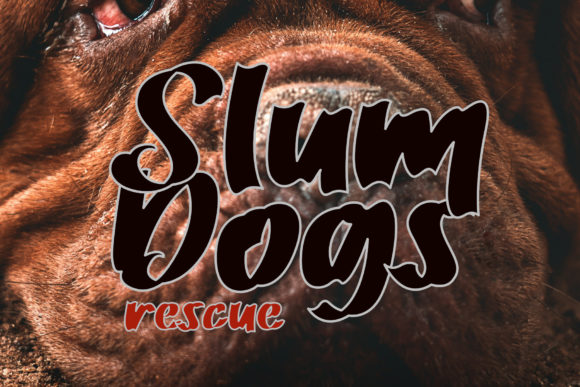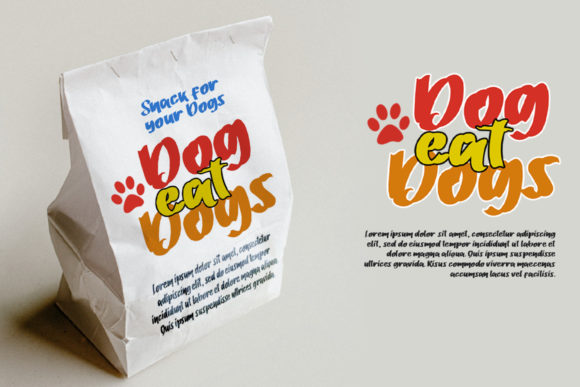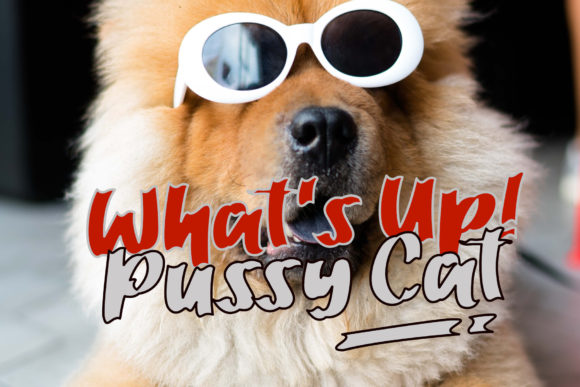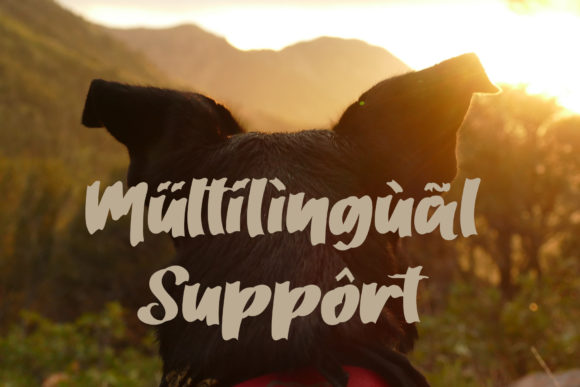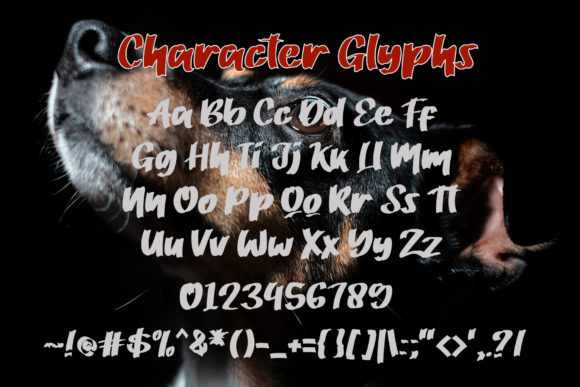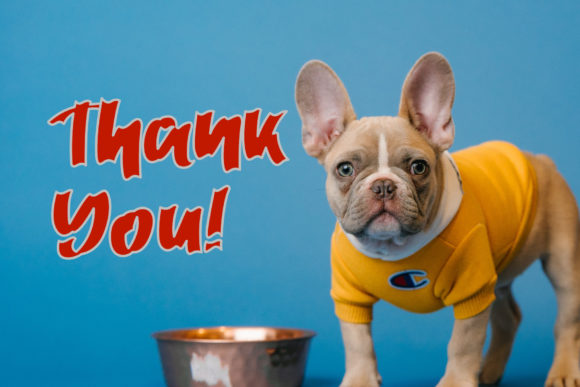
Bullmars Font: The Ultimate Urban Display Font for Designers and Crafters
In the world of typography, fonts play a crucial role in conveying the tone and personality of a design. For designers and crafters looking for a bold, urban, and cool-looking display font, Bullmars Font is an excellent choice. This versatile font is perfect for a wide range of design projects, including t-shirts, sportswear, logos, advertisements, clothing, and more.
What is Bullmars Font?
Bullmars Font is a bold, urban-styled display font designed to make a statement. Its sleek and modern design makes it perfect for designers and crafters who want to add a touch of edginess to their work. The font’s bold and condensed style ensures that your text stands out from the crowd, making it ideal for headlines, titles, and short phrases.
Key Features of Bullmars Font
- Bold and Urban Style: Bullmars Font boasts a bold and urban style that is perfect for creating eye-catching designs.
- Cool and Modern Design: The font’s sleek and modern design makes it perfect for designers and crafters who want to create trendy and stylish designs.
- Versatile and Flexible: Bullmars Font is suitable for a wide range of design projects, from t-shirts and sportswear to logos and advertisements.
- Easy to Read: Despite its bold style, Bullmars Font is easy to read, making it perfect for short phrases and headlines.
Use Cases for Bullmars Font
Bullmars Font is a versatile font that can be used for a wide range of design projects. Here are some use cases where Bullmars Font shines:
- T-Shirts and Apparel: Create eye-catching t-shirt designs with Bullmars Font. Its bold style ensures that your text stands out on any type of apparel.
- Sportswear and Accessories: Use Bullmars Font to create stylish and modern sportswear and accessory designs.
- Logos and Branding: Create a bold and memorable logo with Bullmars Font. Its unique style ensures that your brand stands out from the competition.
- Advertisements and Posters: Use Bullmars Font to create eye-catching advertisements and posters that grab attention.
- Clothing and Fashion: Create stylish and modern clothing and fashion designs with Bullmars Font.
Why Choose Bullmars Font?
With so many fonts available, why choose Bullmars Font? Here are some reasons why Bullmars Font is a great choice for designers and crafters:
- Unique and Stylish: Bullmars Font offers a unique and stylish design that sets it apart from other fonts.
- High-Quality Design: The font is designed with high-quality craftsmanship, ensuring that it looks great in any design project.
Tips for Using Bullmars Font
Here are some tips for using Bullmars Font in your design projects:
- Use it Boldly: Bullmars Font is designed to be used boldly. Don’t be afraid to experiment with different font sizes and styles.
- Pair it with Other Fonts: Pair Bullmars Font with other fonts to create a unique and stylish design.
| Font Name | Bullmars Font |
| Author | Gumacreative |
In conclusion, Bullmars Font is a bold, urban-styled, and cool-looking display font that is perfect for designers and crafters. Its versatility and flexibility make it suitable for a wide range of design projects, from t-shirts and sportswear to logos and advertisements. With its unique and stylish design, high-quality craftsmanship, and affordability, Bullmars Font is an excellent choice for anyone looking to add a touch of edginess to their work.